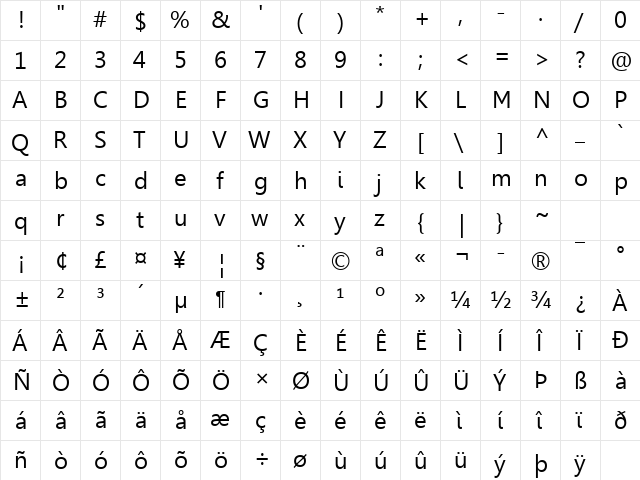
Gisha Regular
| Foundry | Microsoft Corporation |
Design Context for Gisha Typeface
Gisha takes a measured approach to typography — its balanced proportions and neutral character make it a reliable workhorse for both digital and print work.